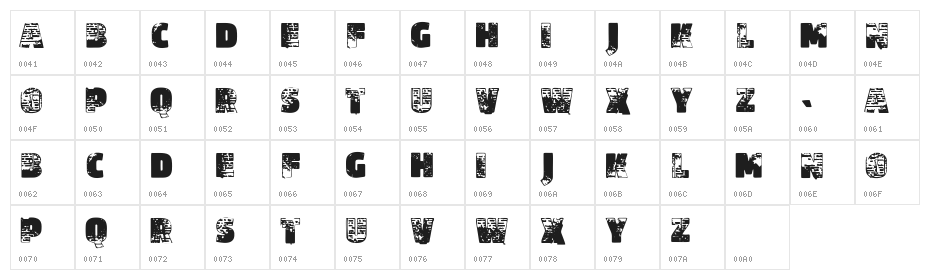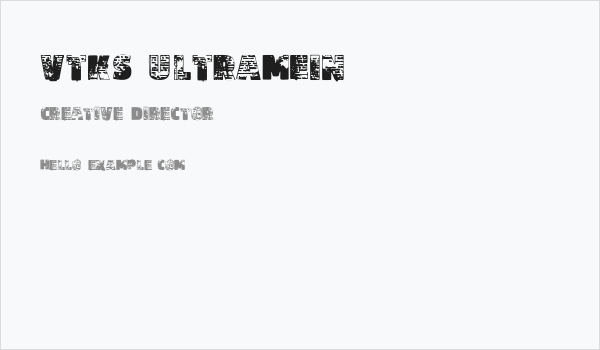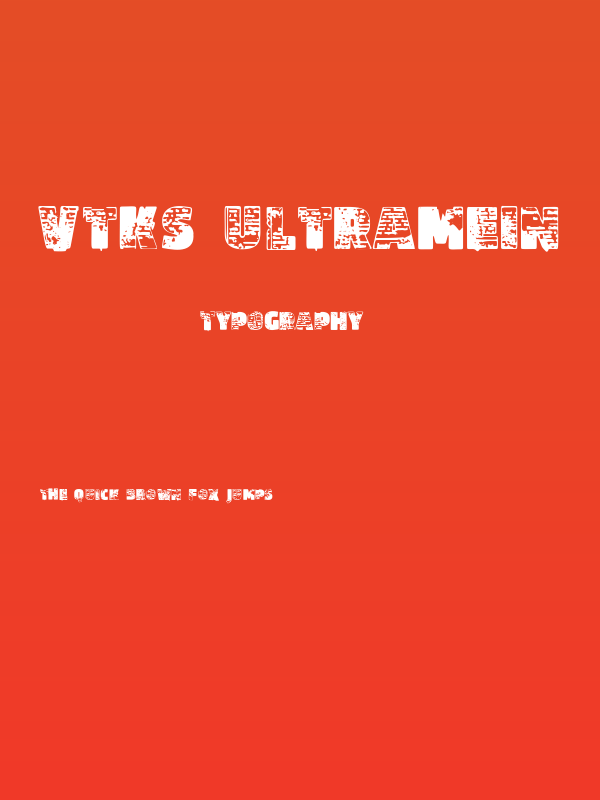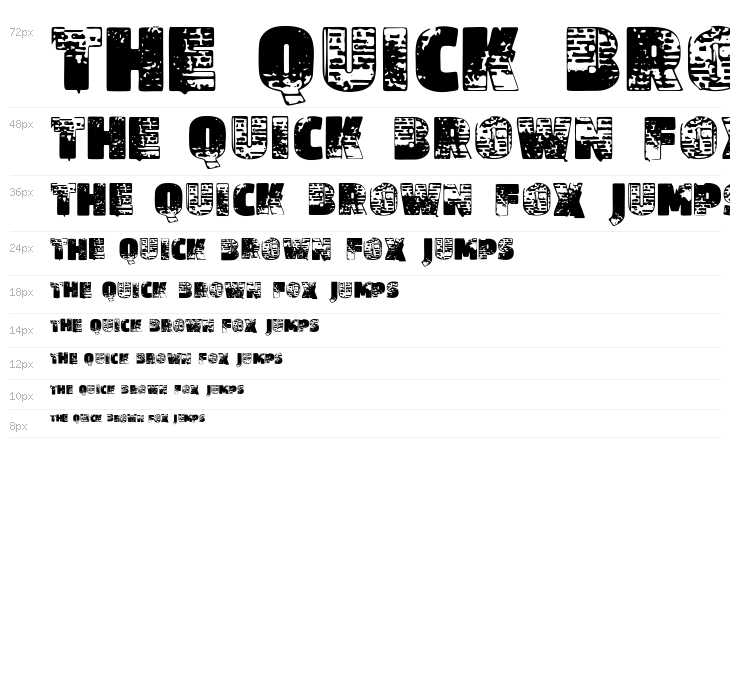
Vtks Ultramein Font
Vtks Ultramein Description
This font features a bold and distressed style, characterized by its rough, textured appearance that gives it a grunge or urban feel. The letters are uppercase and have a blocky, robust structure, making them stand out prominently. The texture within each character varies, adding a dynamic and edgy look that can convey a sense of ruggedness or rebellion. This font is particularly suitable for designs that require a strong visual impact, such as posters, album covers, or any project that aims to capture attention with its bold and unconventional style.
| Overall Style | Grunge, Urban, Edgy |
| Proposed Projects | Ideal for posters, album covers, streetwear branding, and edgy graphic designs. |